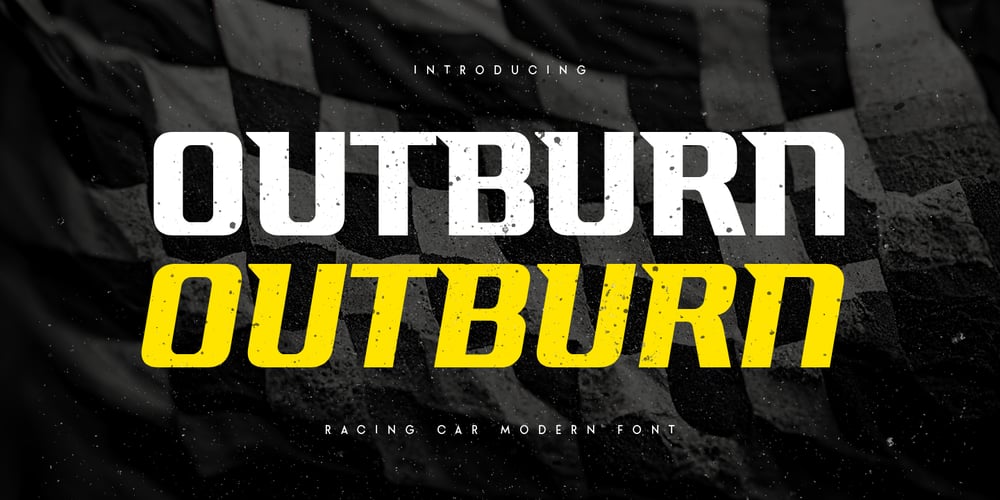
Outburn Font Family was designed by Zamroni Hamzah and published by Sensatype Studio. Outburn contains 2 styles and family package options. Outburn, a Racing Car Modern Font that created special for Branding, Title and more stand out typography for sport and action. It’s so perfect to add your style and headline overview for sport, technology, actions, and fighting theme. And specially for this font, we crafted for bold action style and modern feels so enjoy to create any project that will show your main idea out.Outburn Racing Car Modern Font ready with: Regular & Italic characters prepared to get best results 4 files format already Preview as a inspirations that you can do with this font Ready Uppercase and Lowercase characters Wish you enjoy our font. ๐